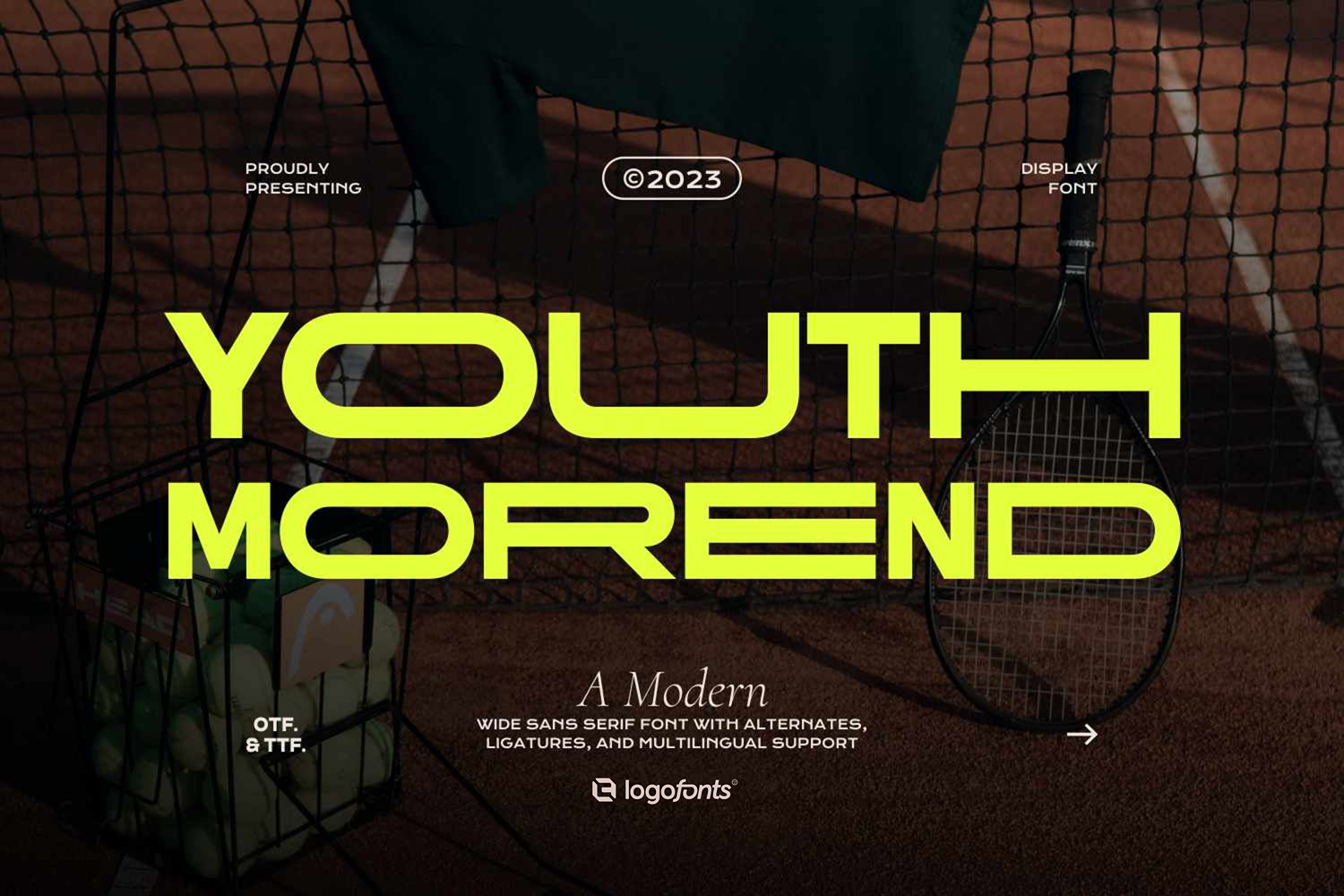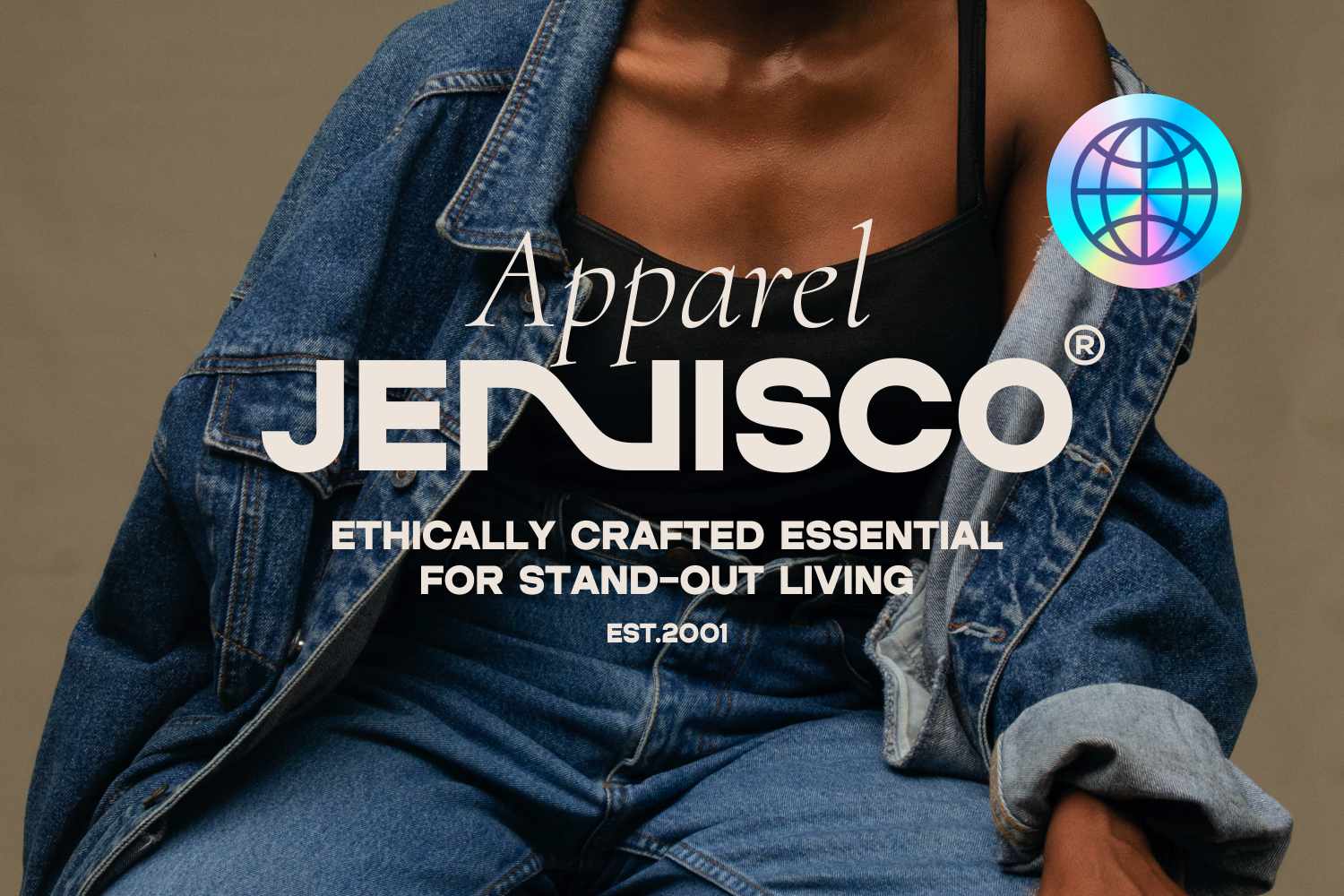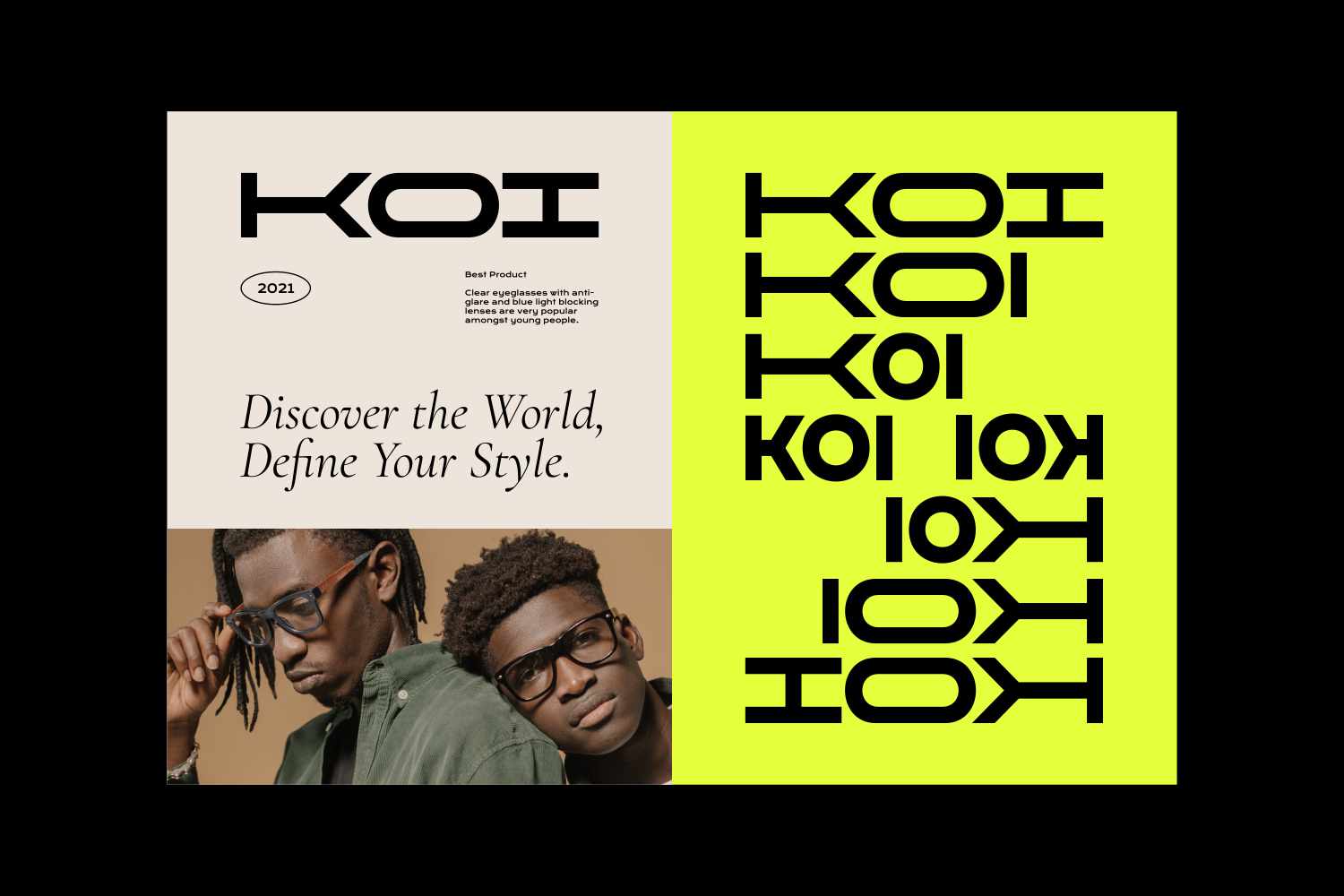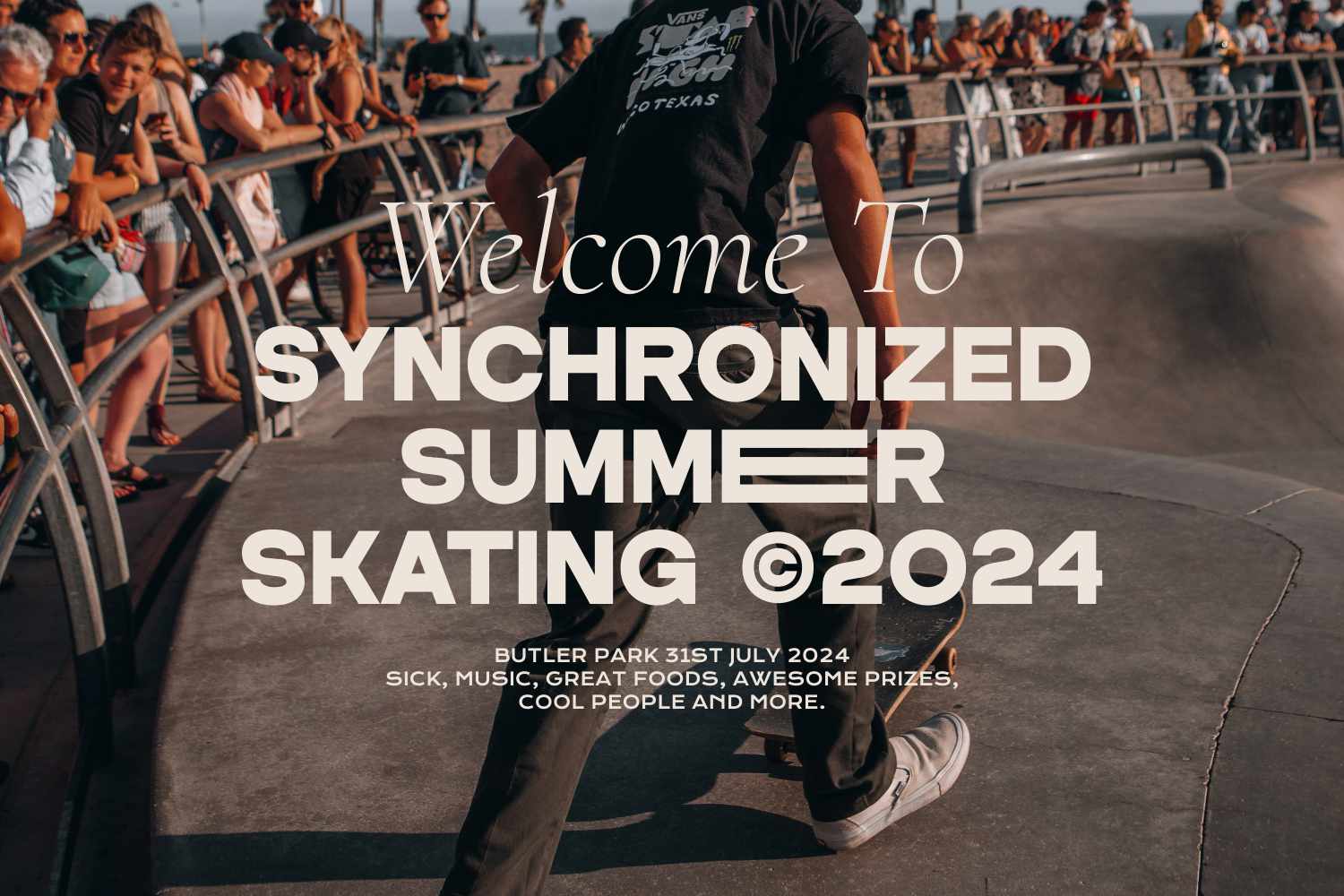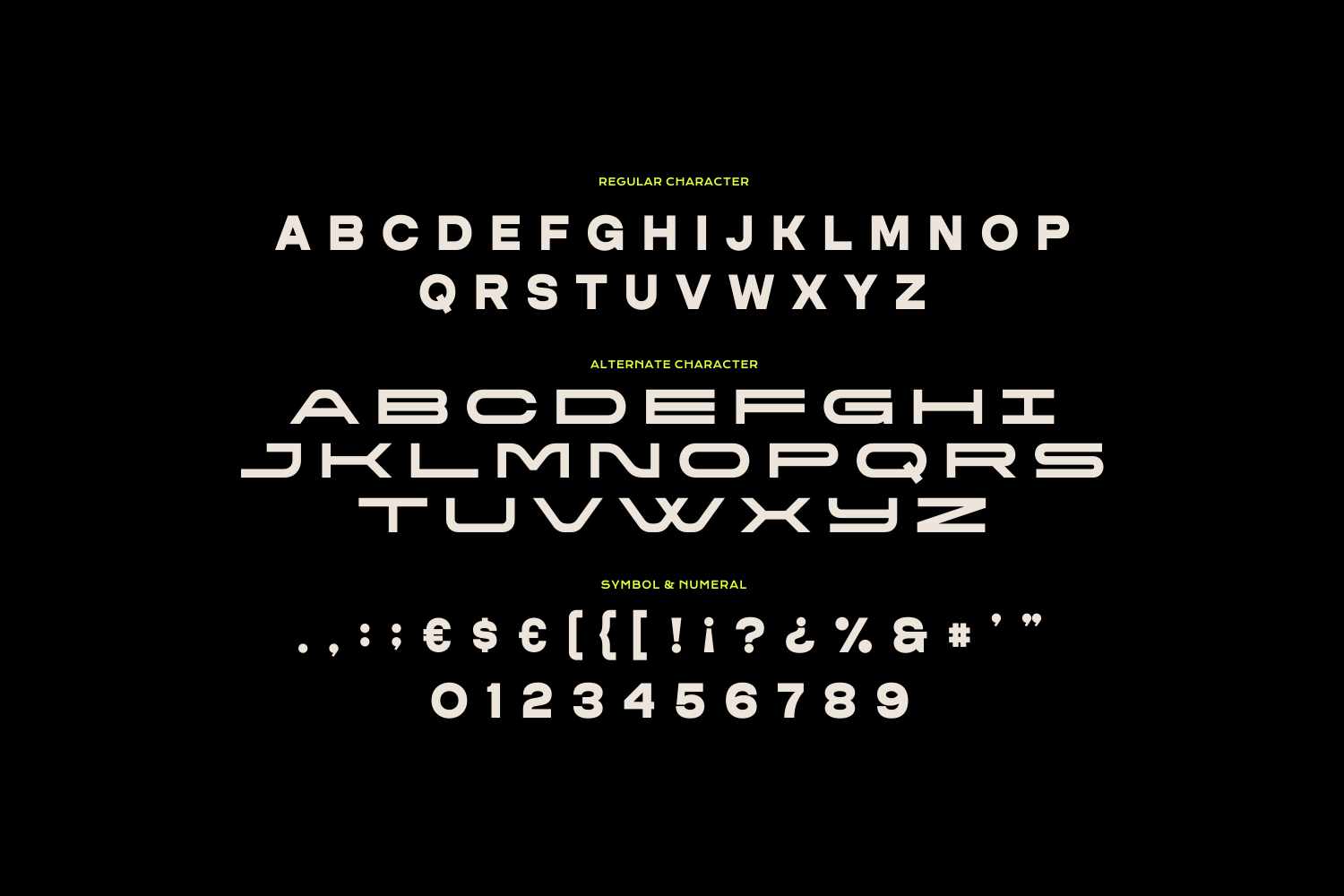
Youth Morend
Youth Morend is a modern wide sans serif display font designed with a bold personality and futuristic appeal. It features a geometric structure with high-impact uppercase letters, making it ideal for branding, apparel design, tech visuals, and editorial headlines. The regular and alternate characters give it remarkable flexibility, while the sharp angles and wide spacing evoke confidence and innovation.
With stylistic alternates and multilingual support, this font is perfect for standout visual identities and sleek design compositions. Whether you’re building a fashion-forward logo, digital ad, or a vibrant print layout, Youth Morend delivers clarity, boldness, and contemporary edge with every character.